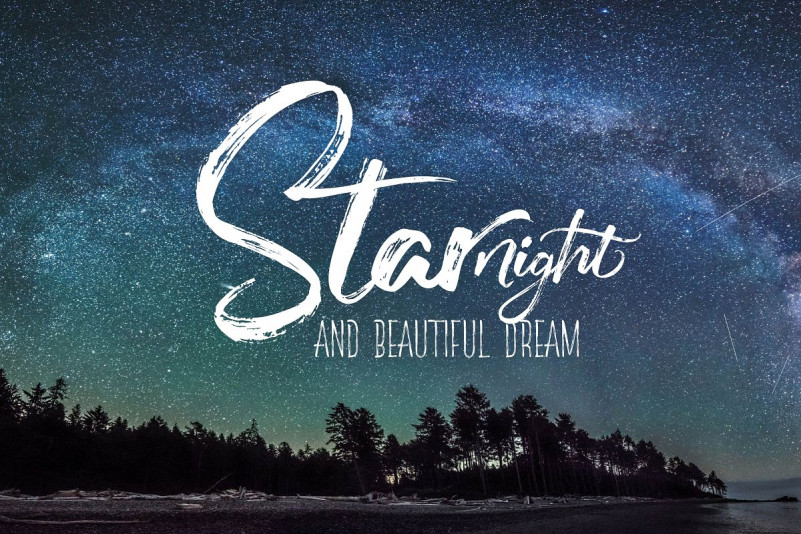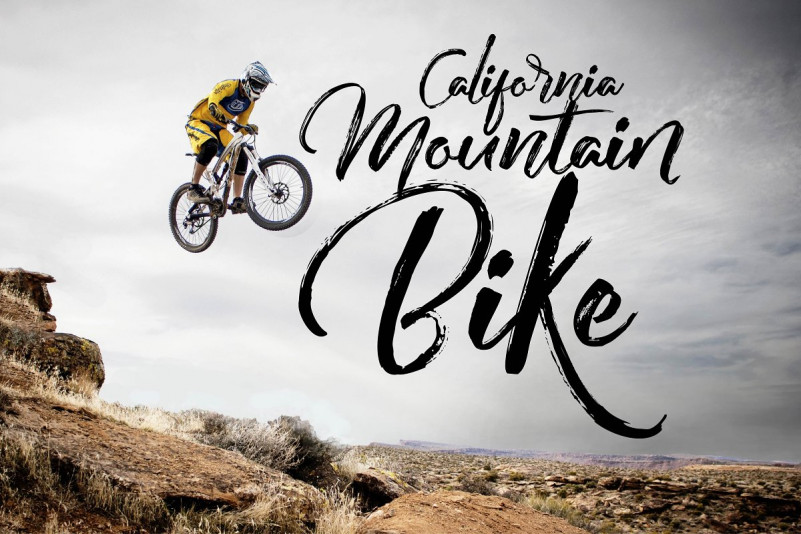
The Redlight Font Duo
Introducing a new Script font. The Red Light Font Duo was designed by Rabbittype, a professional designer, with many famous font. The Redlight Font Duo is a beautiful Script, It suitable for wedding invitation, greeting cards, T-Shirt, Logo or any design that you create.comes with a complete set of standard characters, Alternates, Punctuation & international glyphs